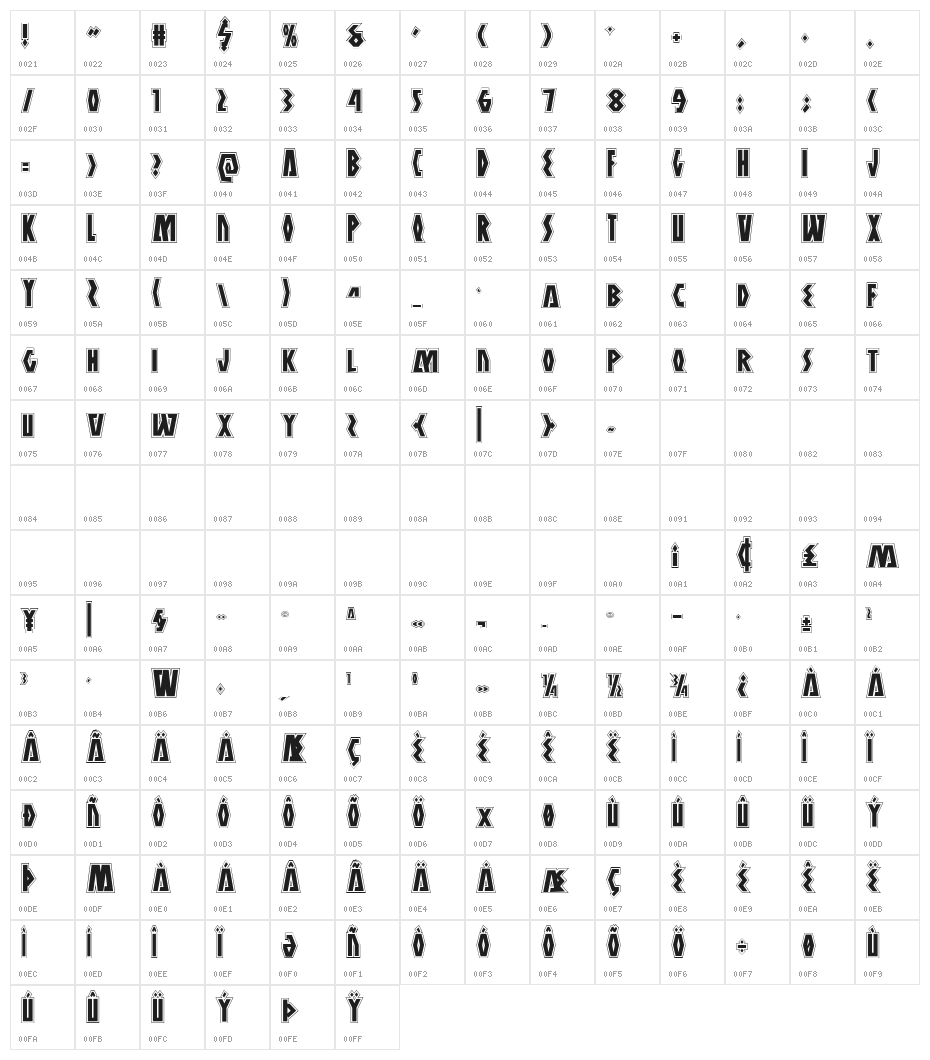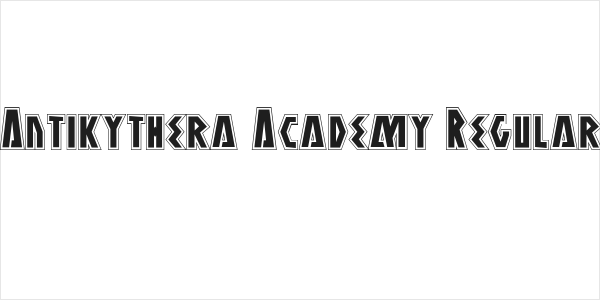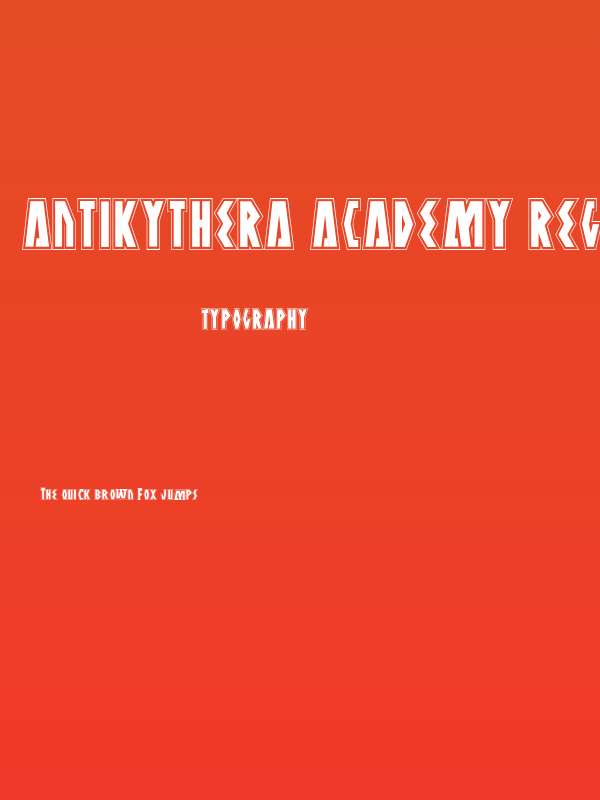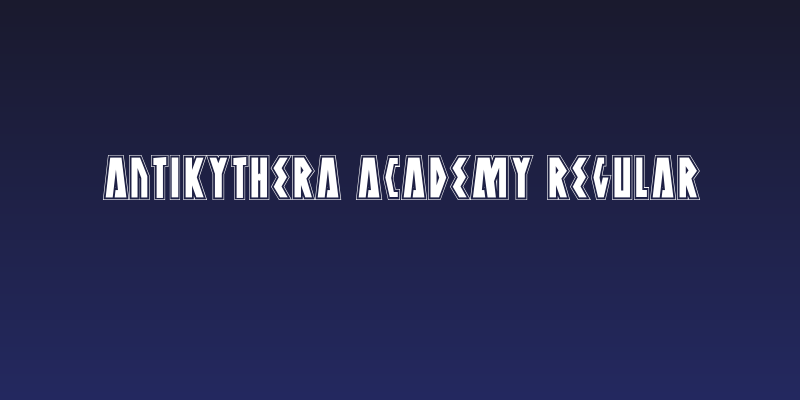
Antikythera Academy Regular Font
Antikythera Academy Regular Description
This font features a bold, geometric style with a three-dimensional effect. The characters are outlined with a thick border, creating a striking contrast between the inner and outer edges. The angular design gives it a futuristic and dynamic appearance, making it stand out in any design. The uppercase letters are particularly prominent, with sharp angles and a solid presence. The numerals and special characters maintain the same bold and angular style, ensuring consistency throughout the font. This font is ideal for projects that require a strong visual impact.